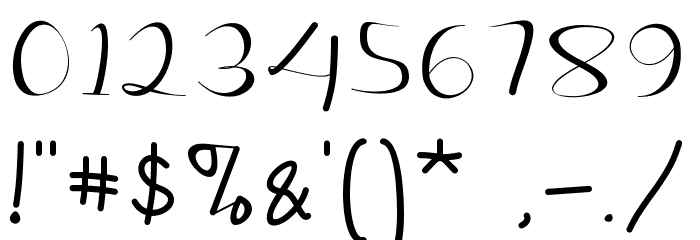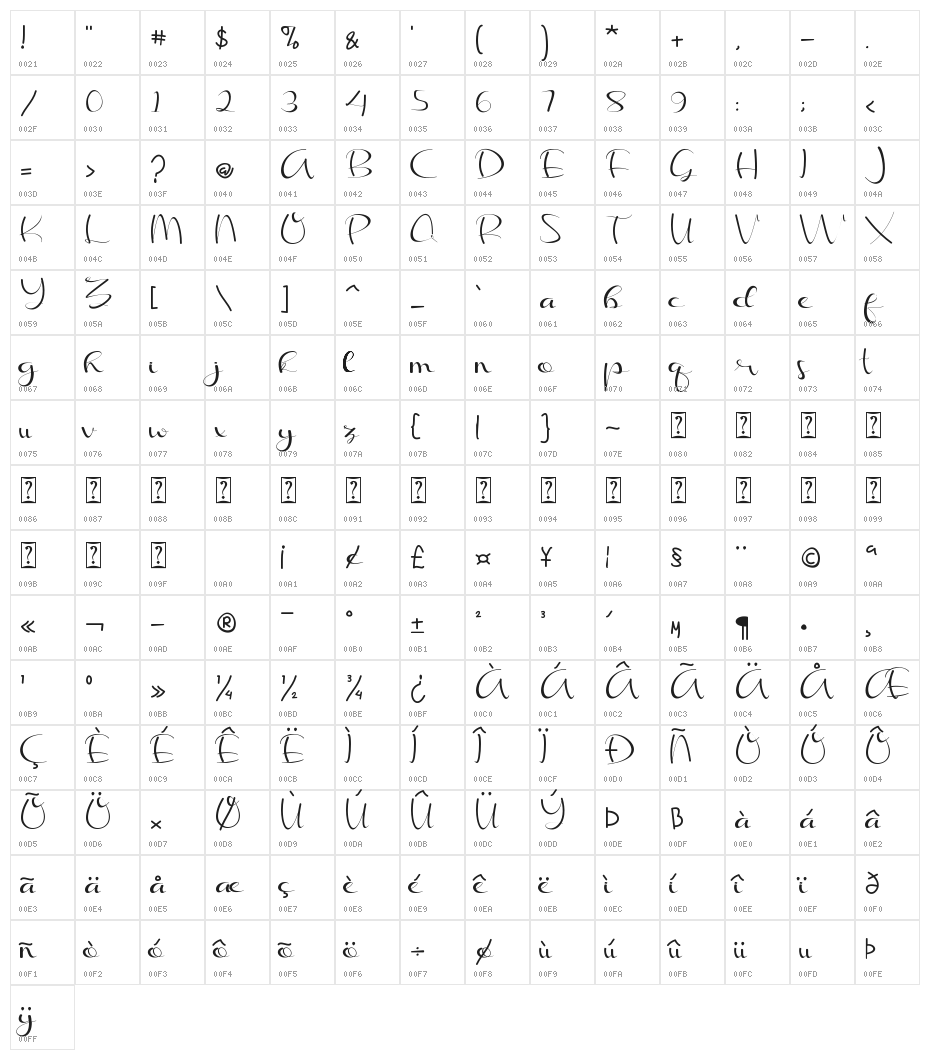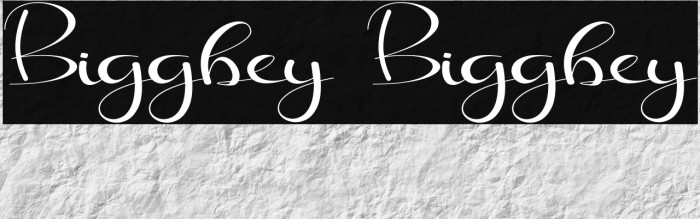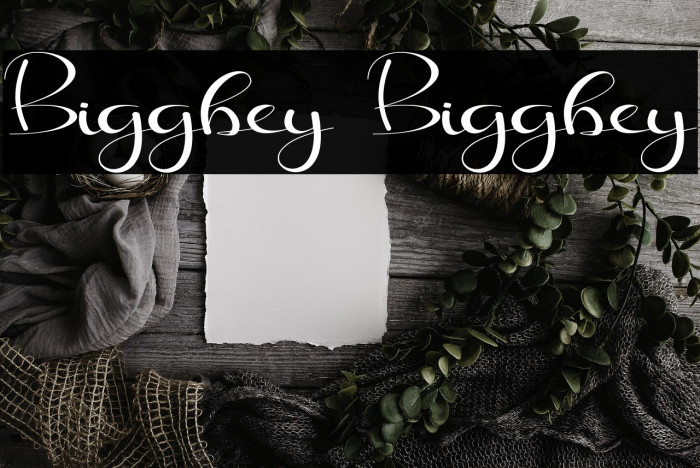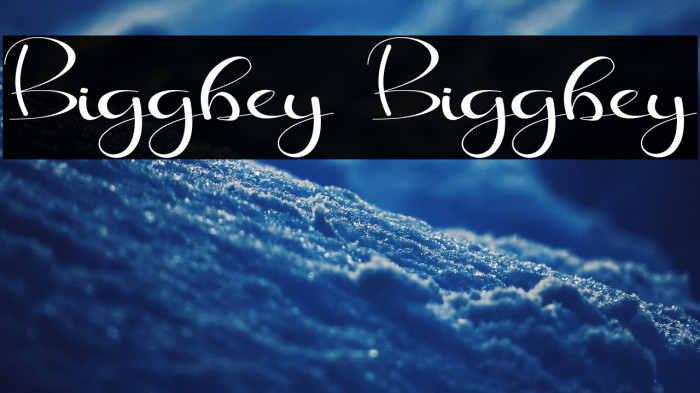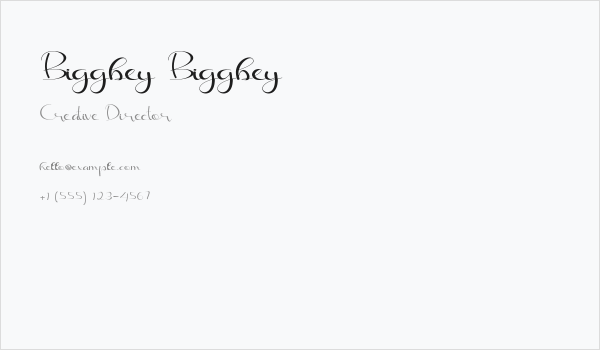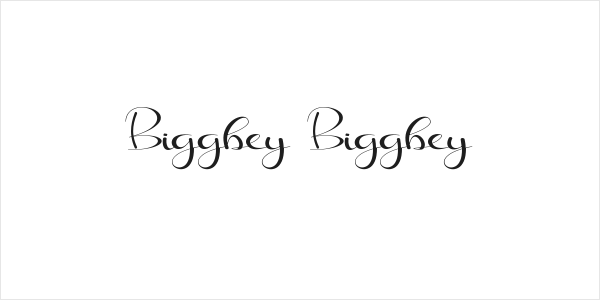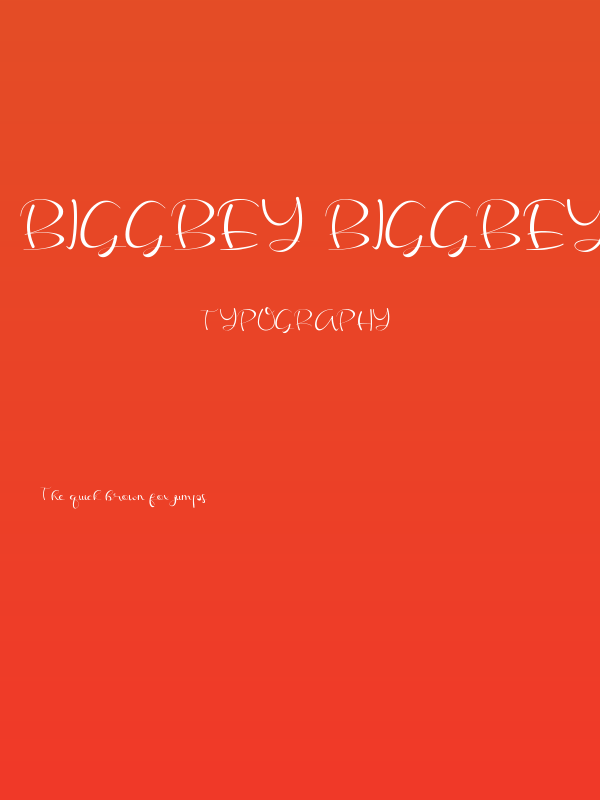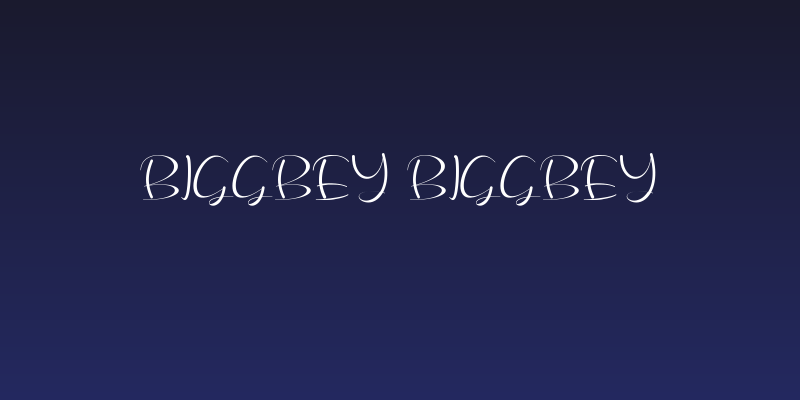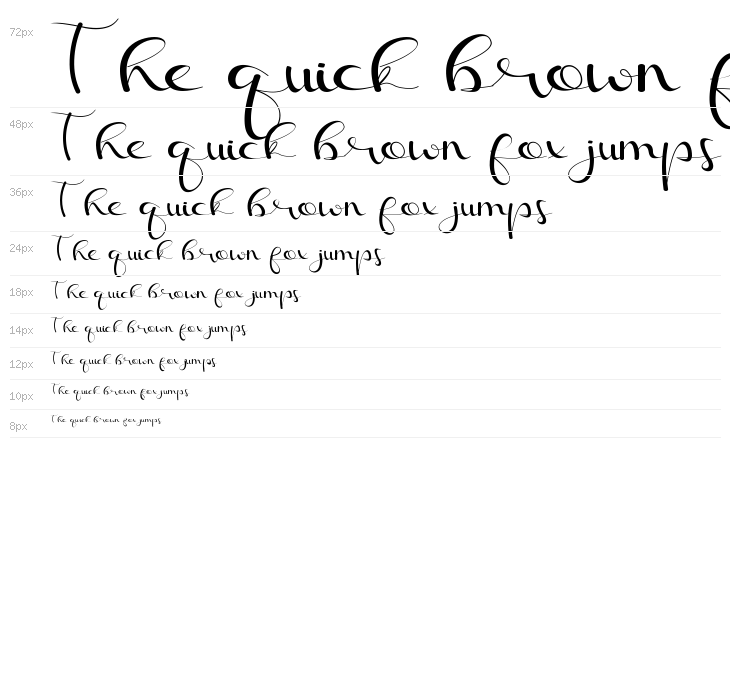
Biggbey Font
Biggbey Description
This font features an elegant and flowing script style, characterized by its smooth, cursive strokes and graceful curves. The uppercase letters are distinct with a sophisticated flair, while the lowercase letters exhibit a charming, handwritten quality. The numerals maintain the same fluidity, adding a touch of elegance to any numerical representation. Special characters are crafted with the same attention to detail, ensuring consistency throughout. The overall design is both artistic and readable, making it suitable for a variety of creative applications.